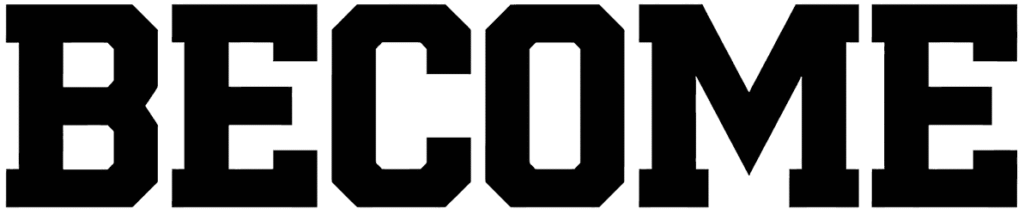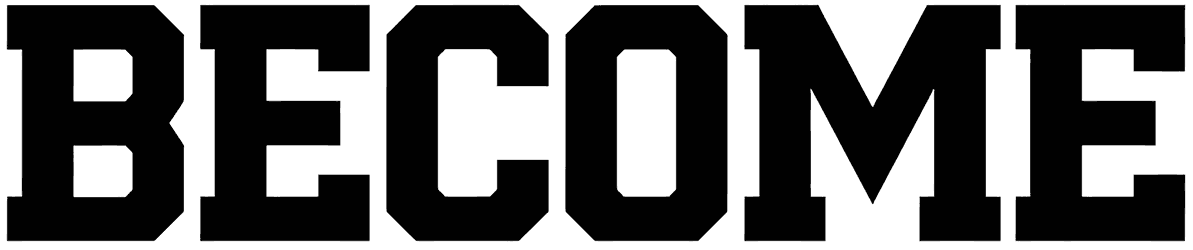
Become Font
The empowering style of a font can be even more noticeable when that font is called “Become”, right? Some things can’t be changed, though, like the fact that it’s a football font, so it’s definitely gonna bring along a college quality with it.
But where you can put this athletic theme to use, that’s up to you and your imagination. From sports news to basketball team logos and uniforms to anything varsity, this font can do it flawlessly without exception.